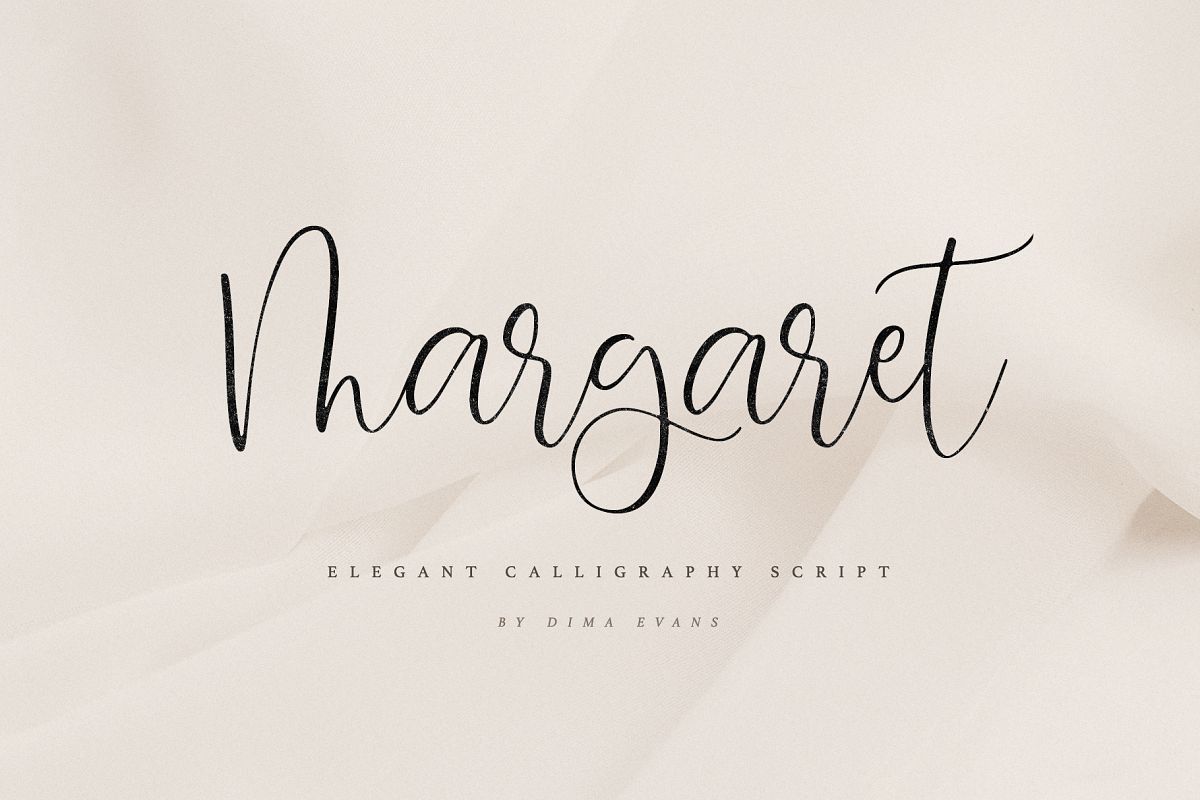
Margaret handwritten Script with swashes
Margaret it is a Calligraphy chick font with exquisite accents. It is perfect for branding, wedding invitations and invitation cards and many more
• Regular Script
• Swashes Set 1
• Swashes Set 2
• Uppercase and lowercase
• Numbers and punctuation